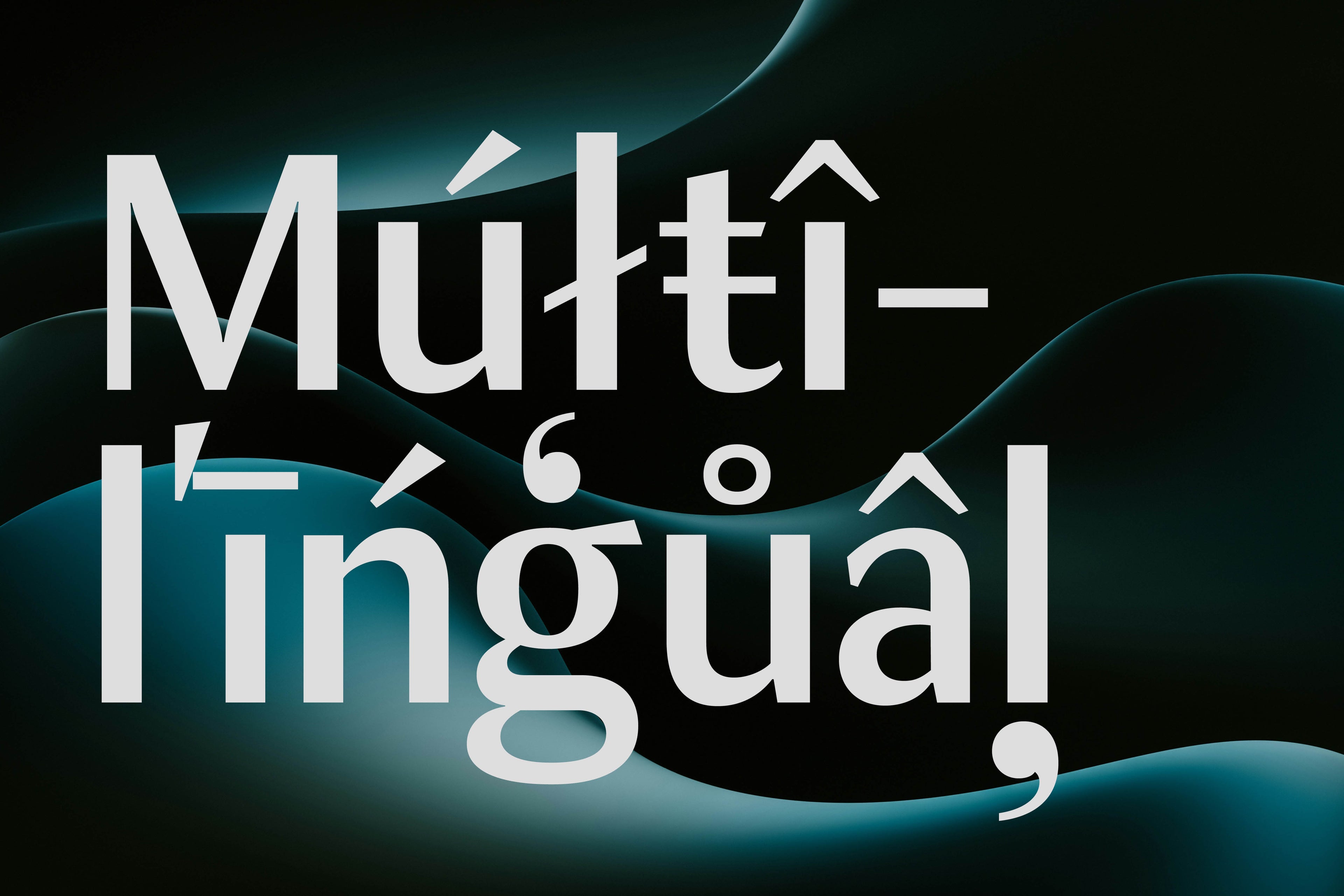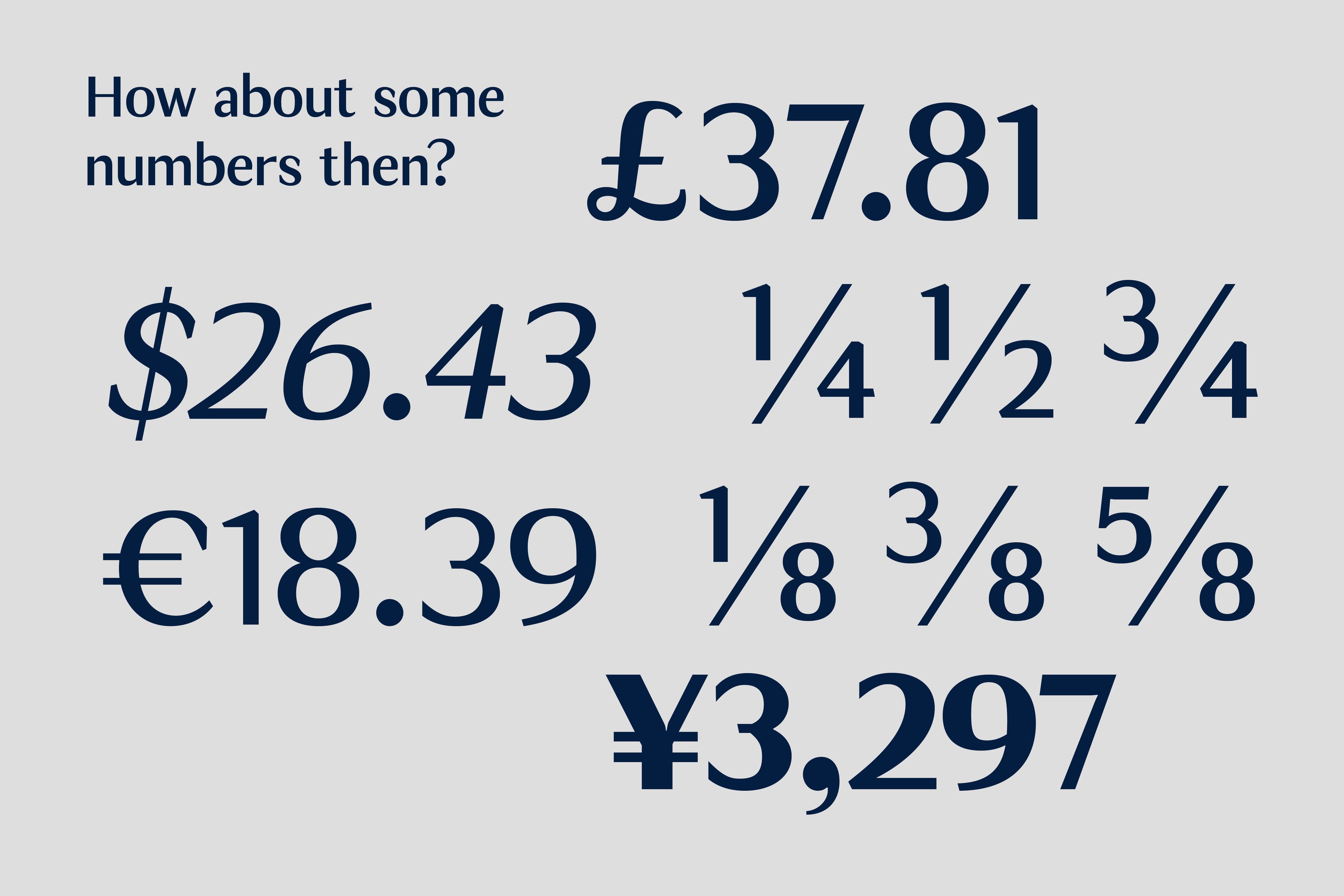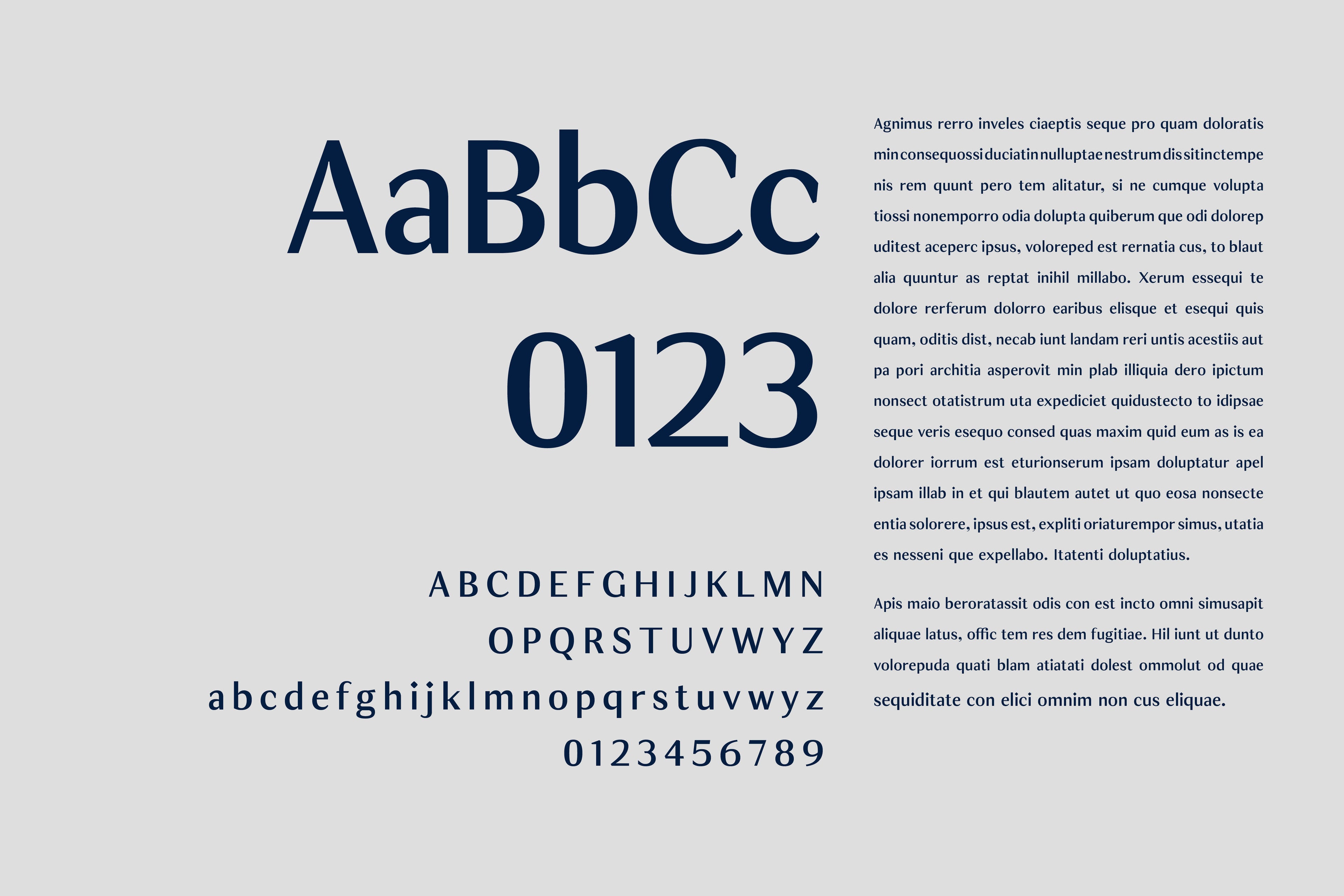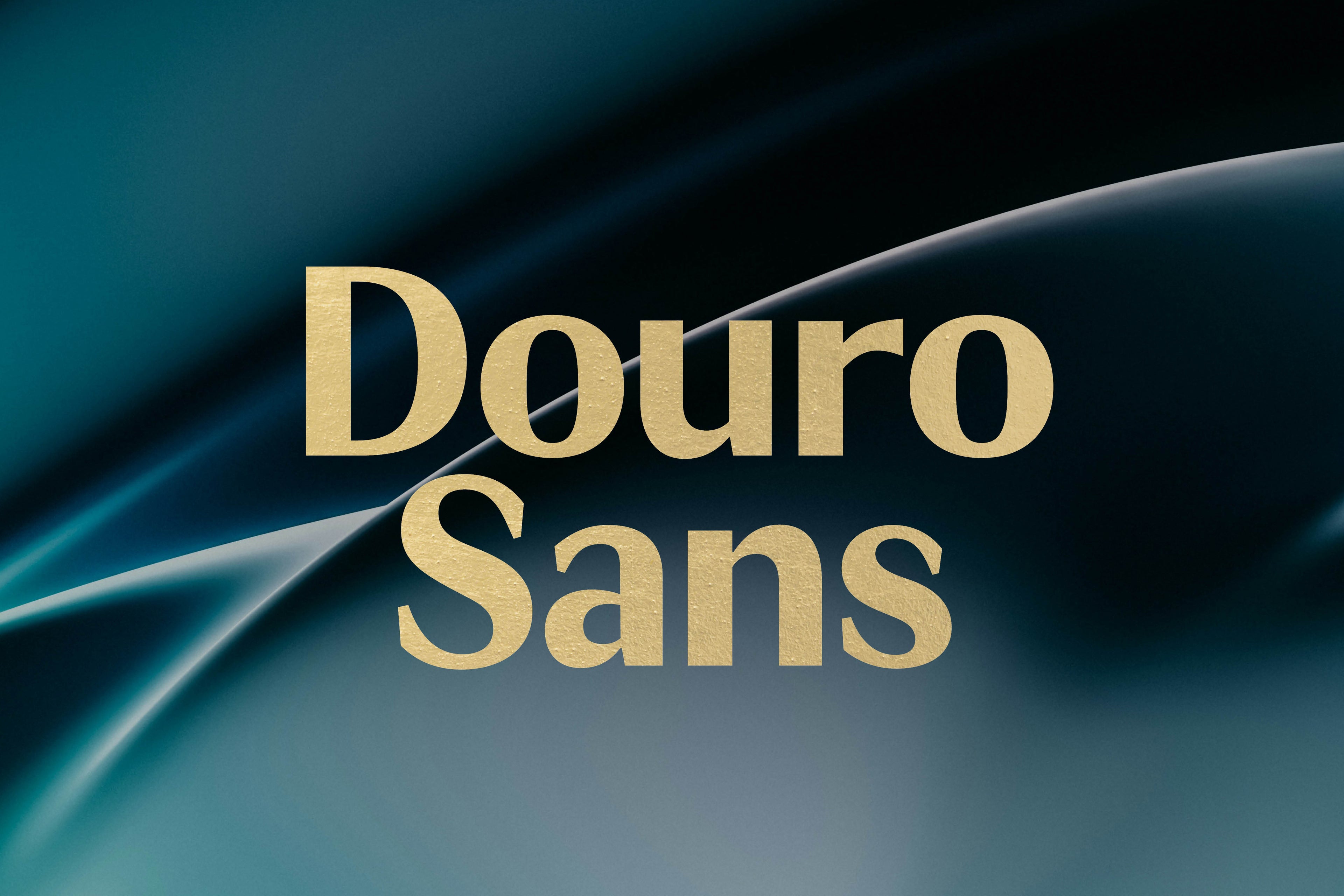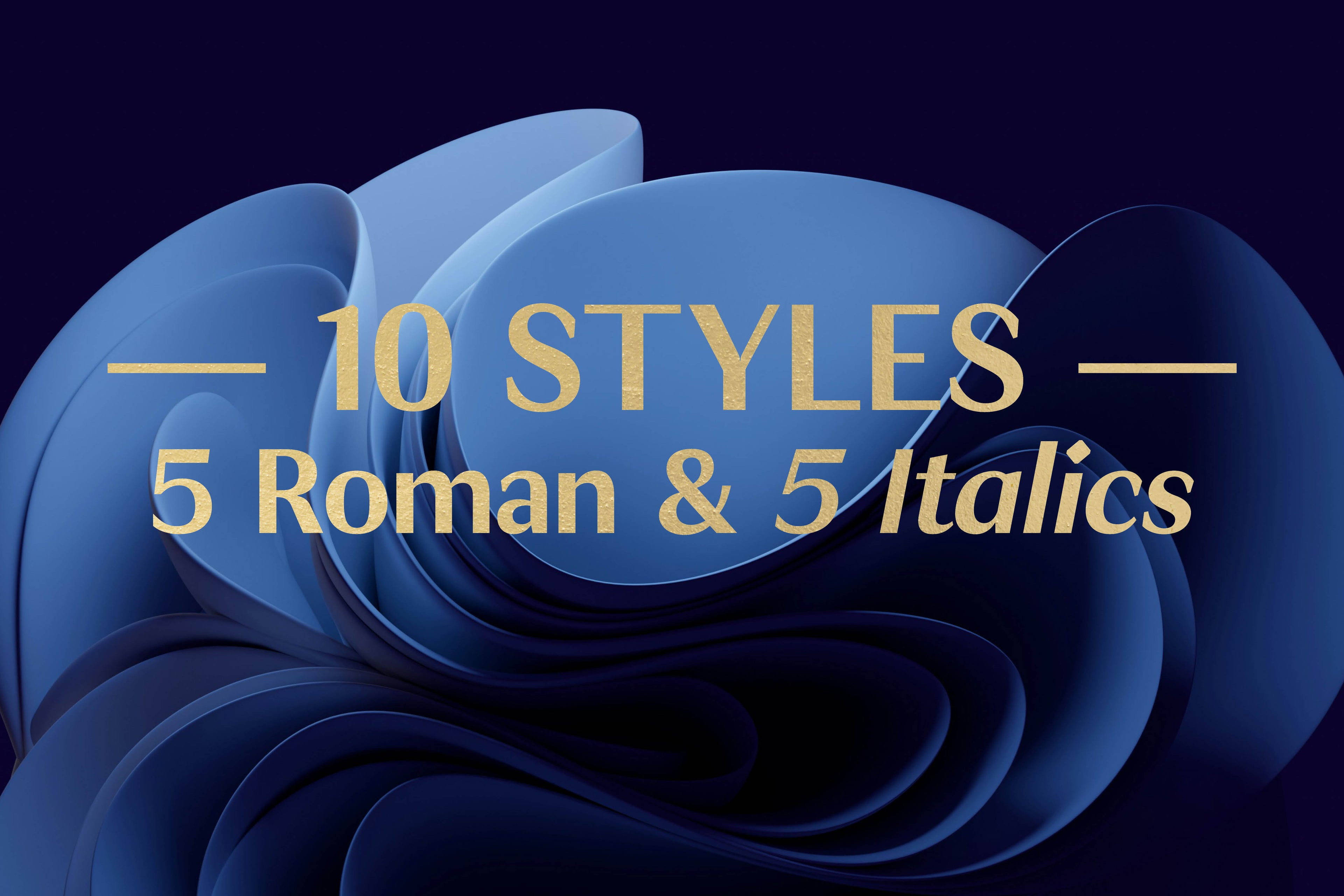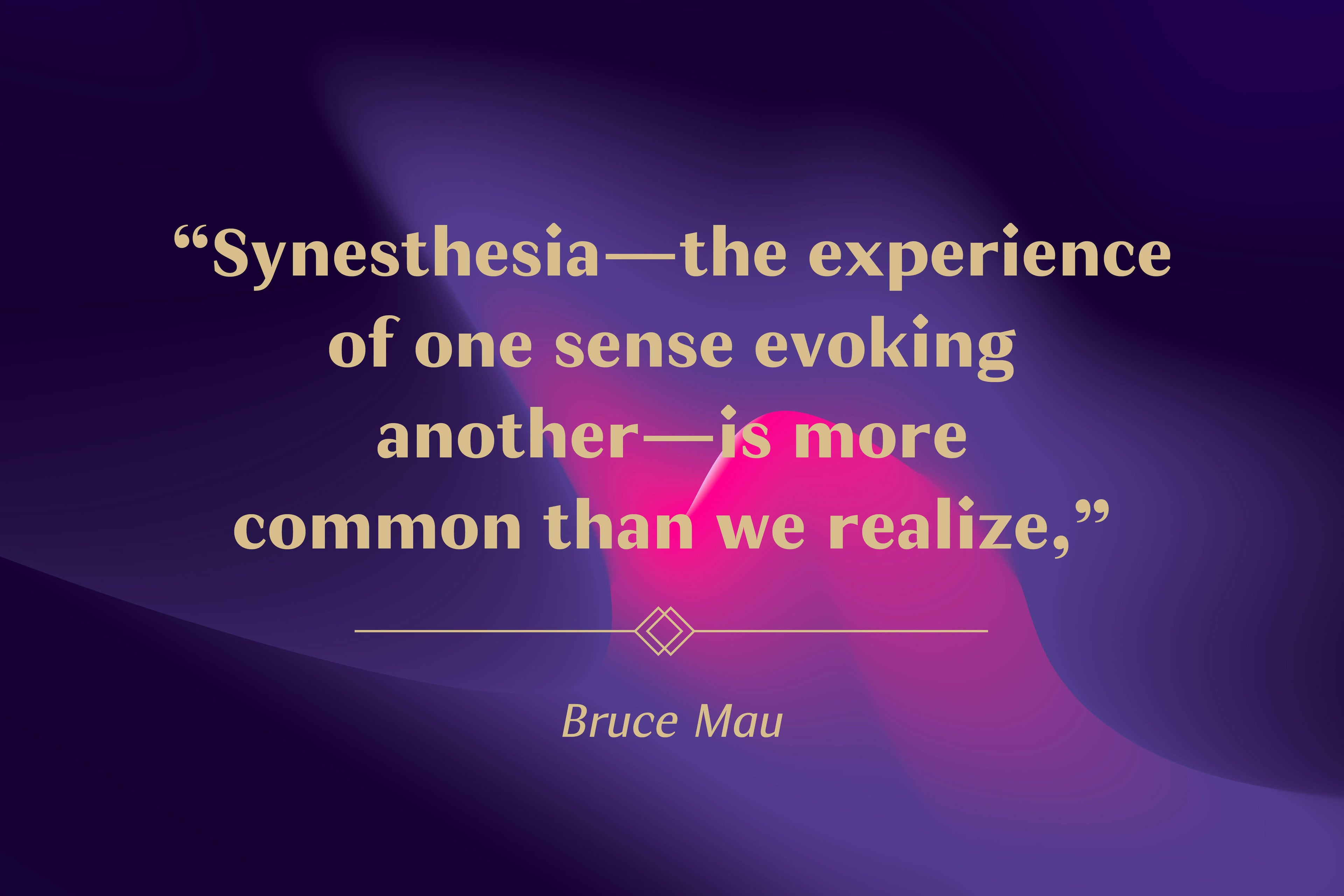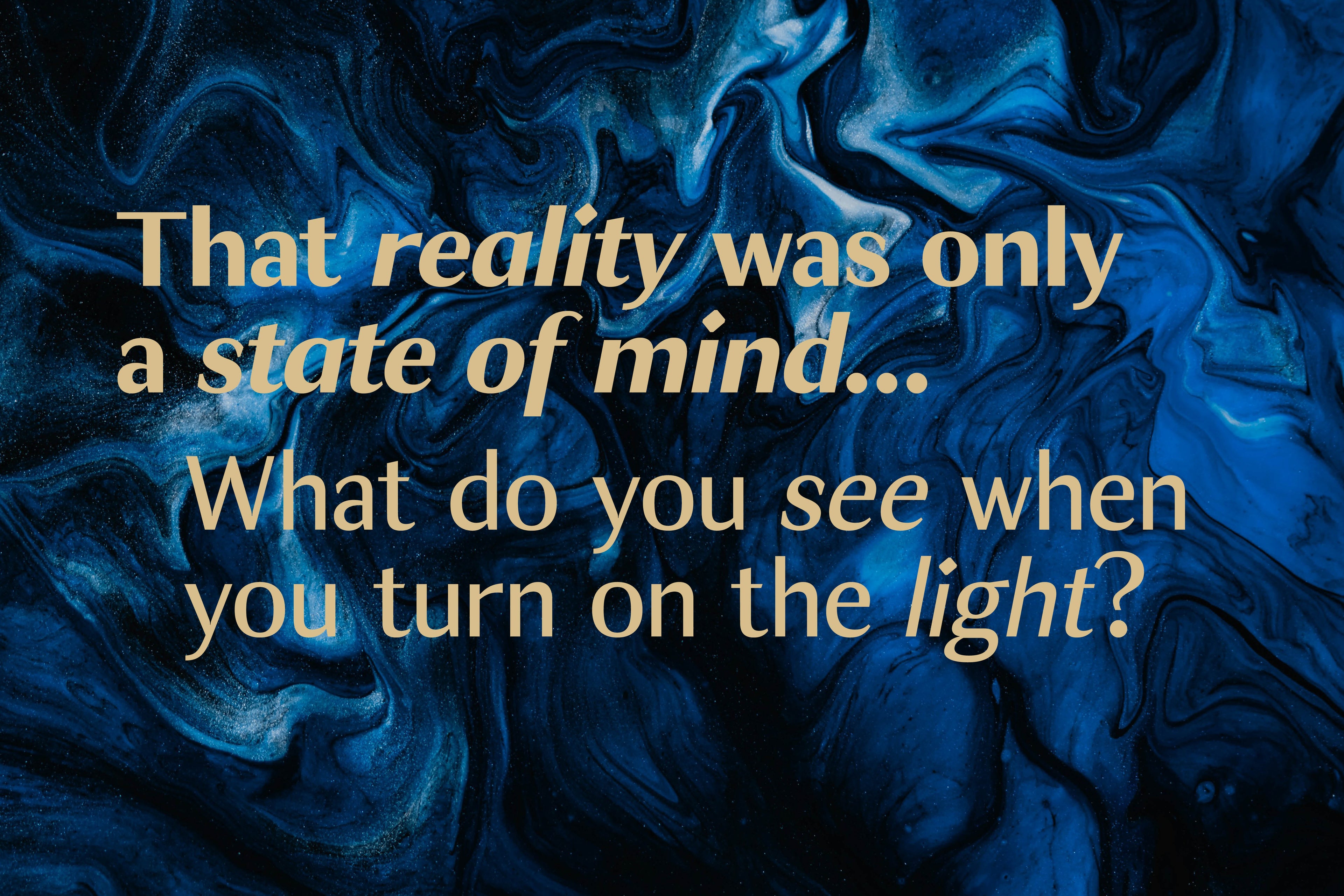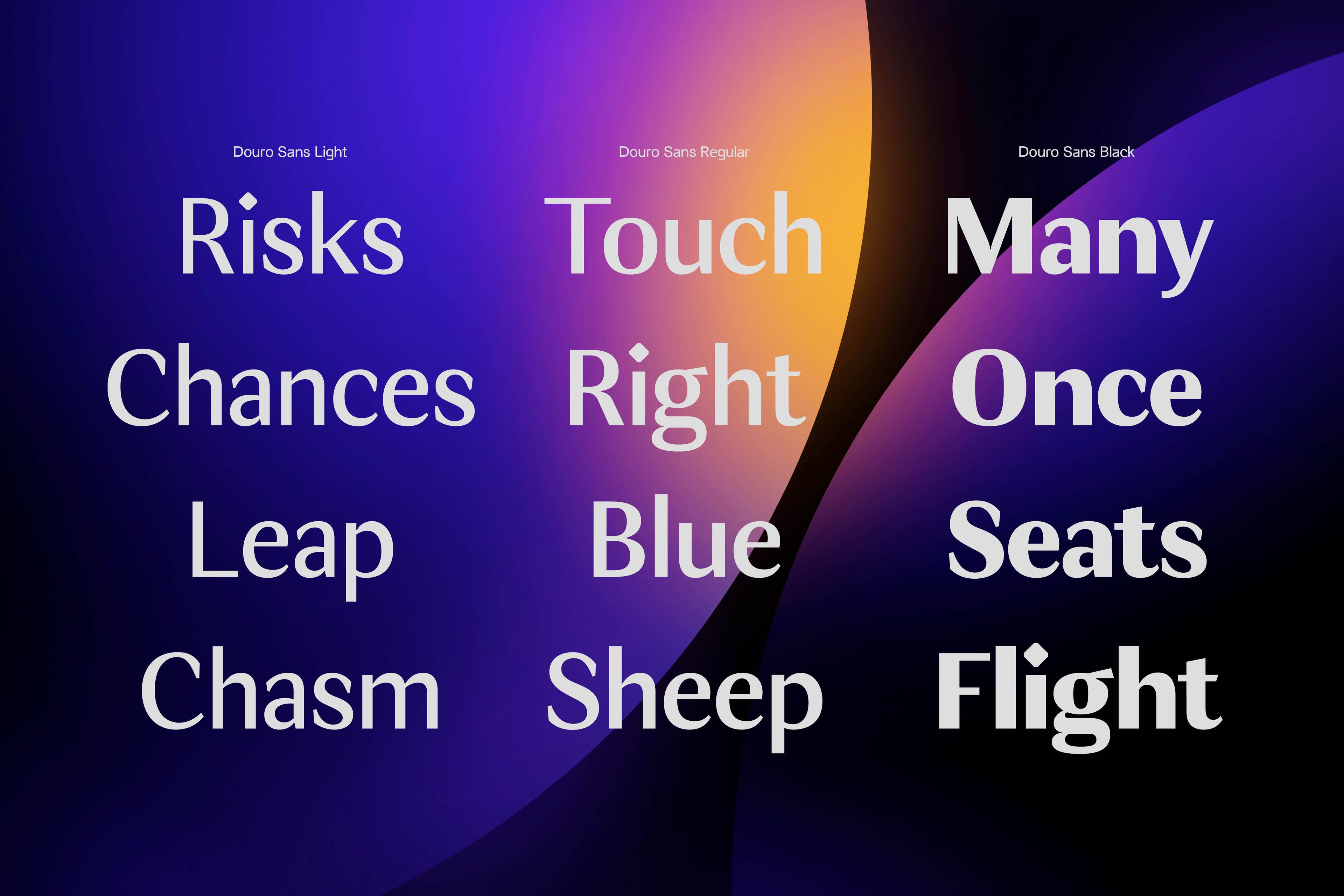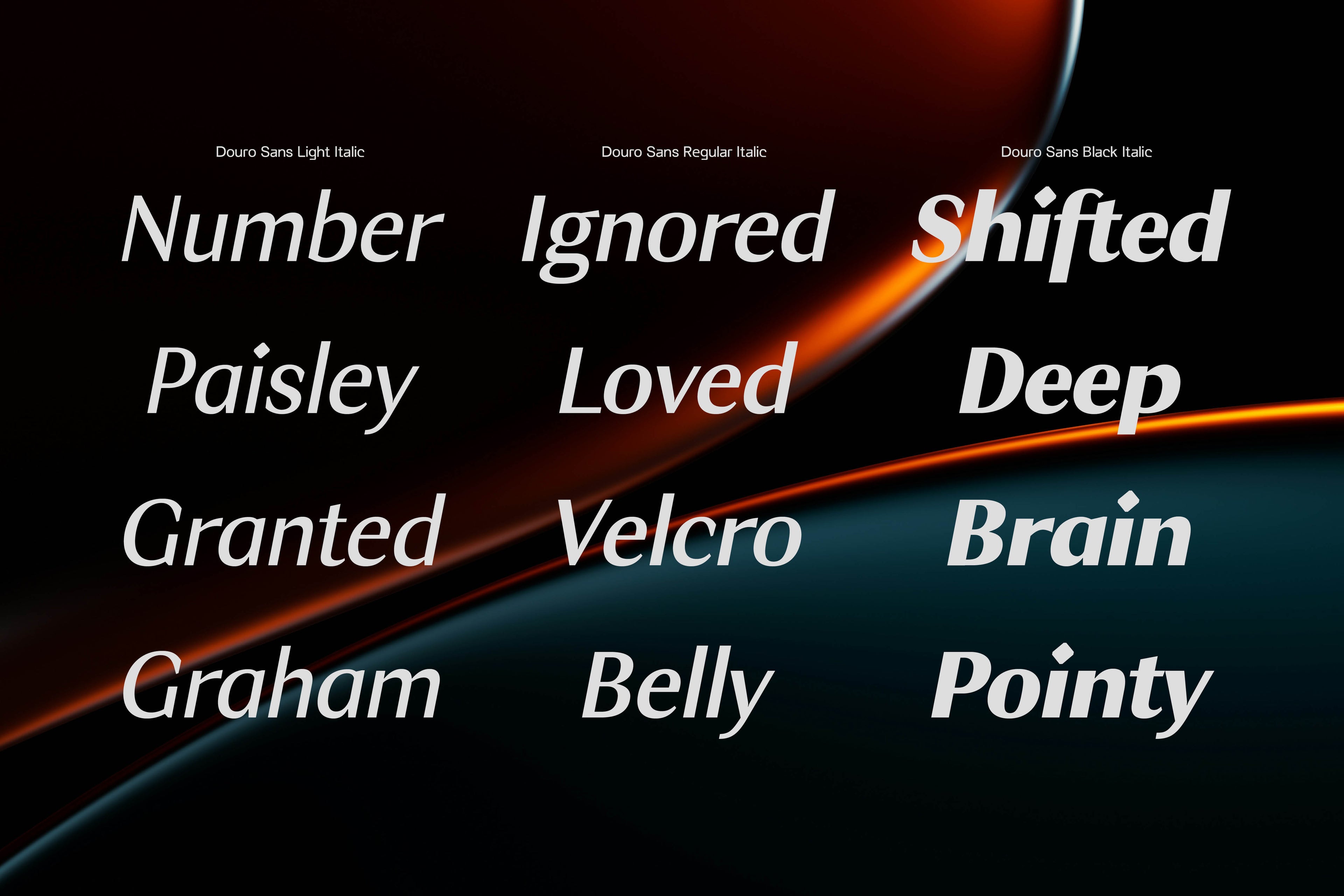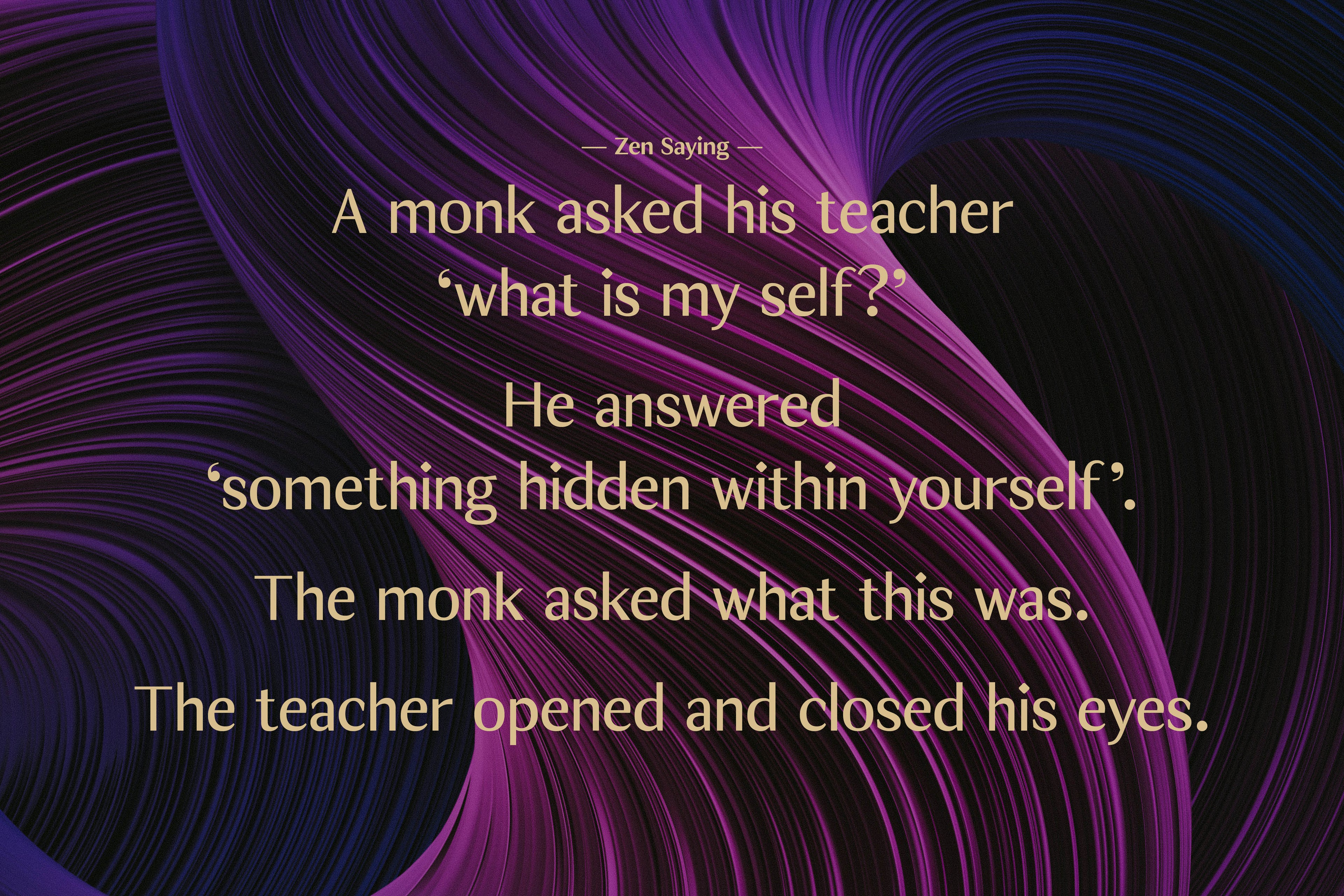
Inspired by the art deco movement in France at the turn of the last century and in United States in the 1930s. Boasting over 500 glyphs, with its multiple ligature sets and alternatives, this is a wonderful typeface to use on posters, magazines and on promotional collateral!